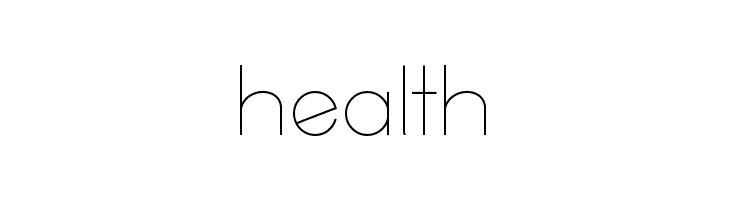
Offerings Font
A clean, minimalist font with thin lines and modern style.
Offerings Italic Font
A modern, italic font with sleek, elongated characters and a minimalist design.